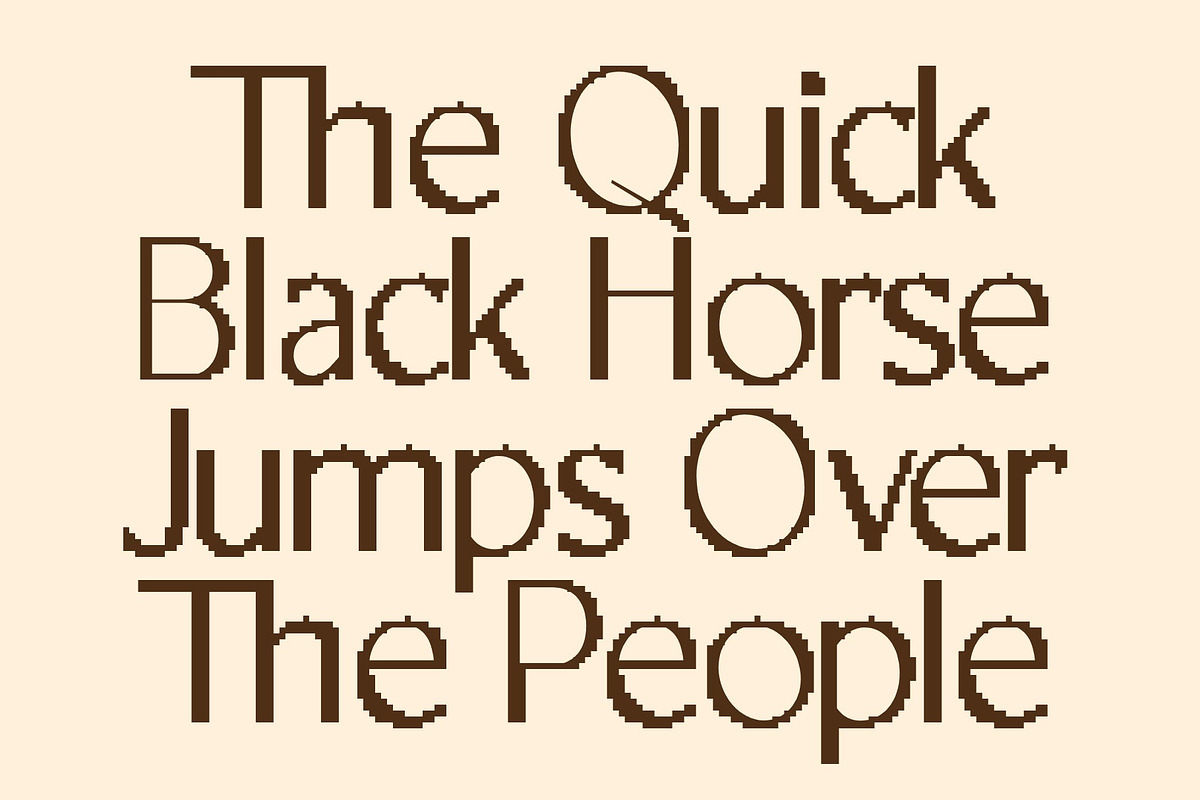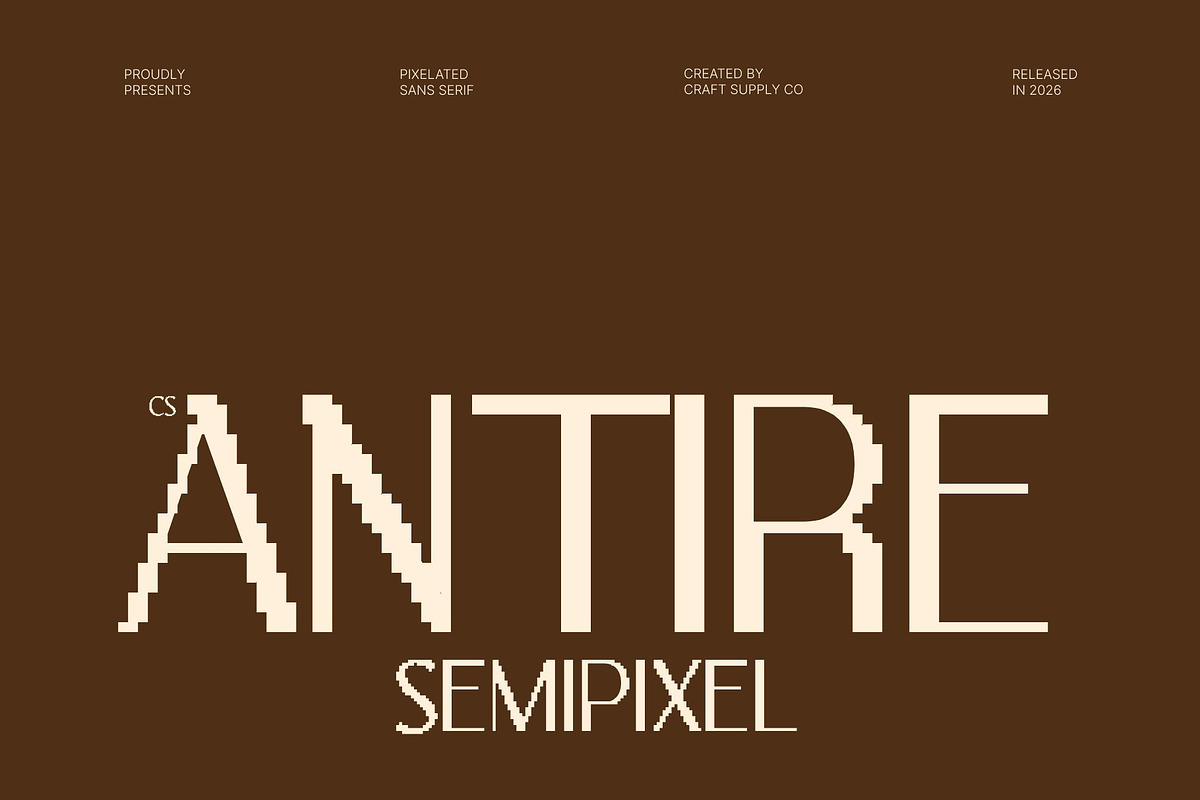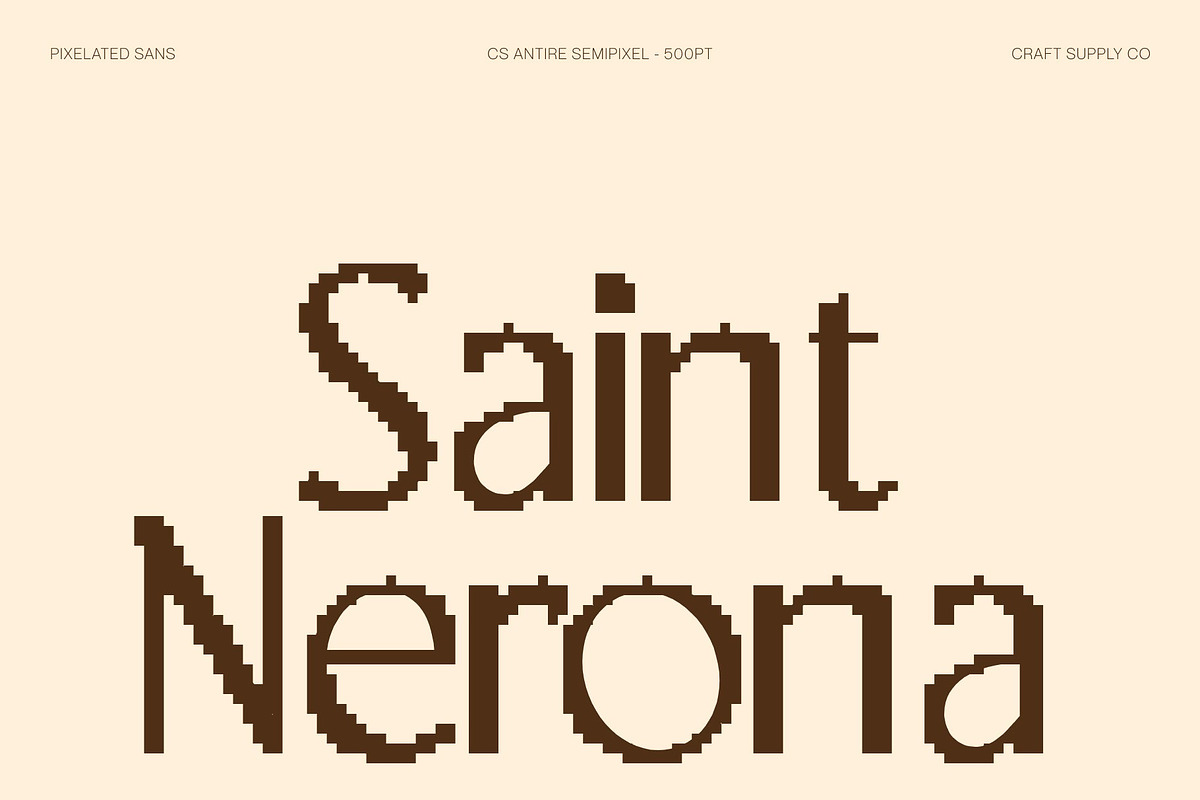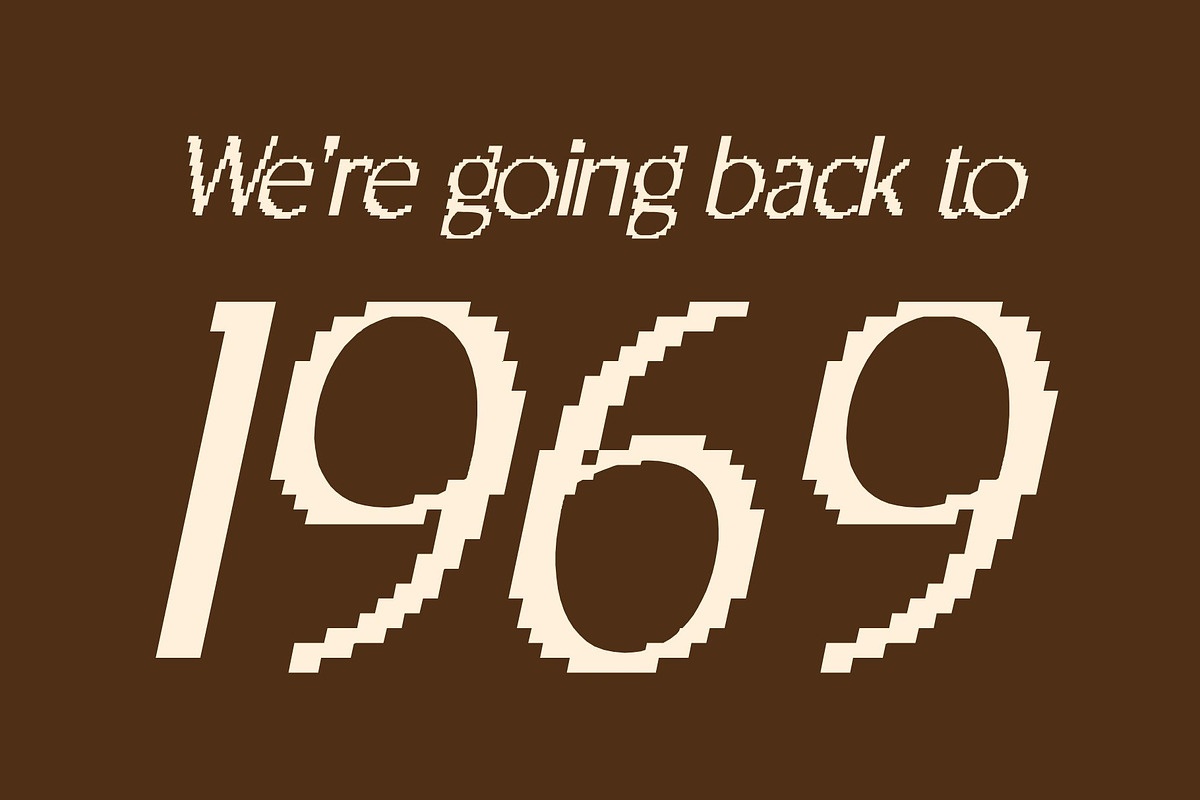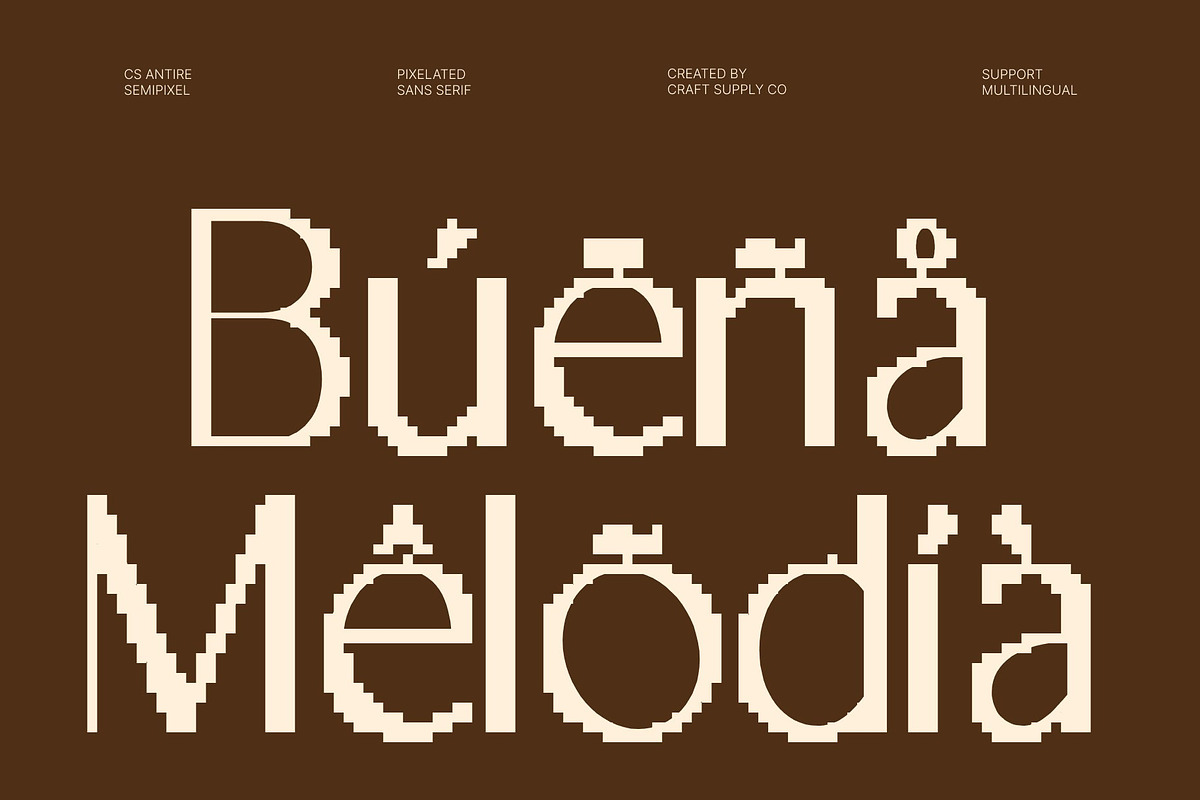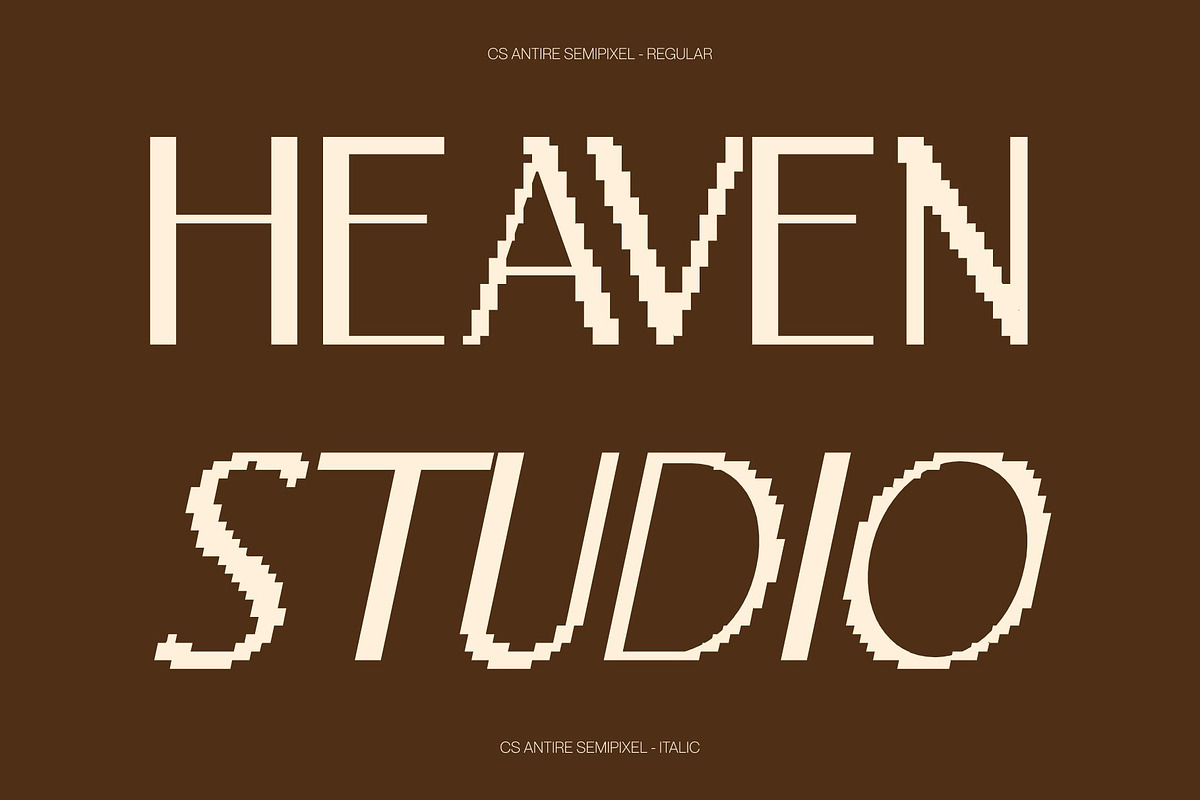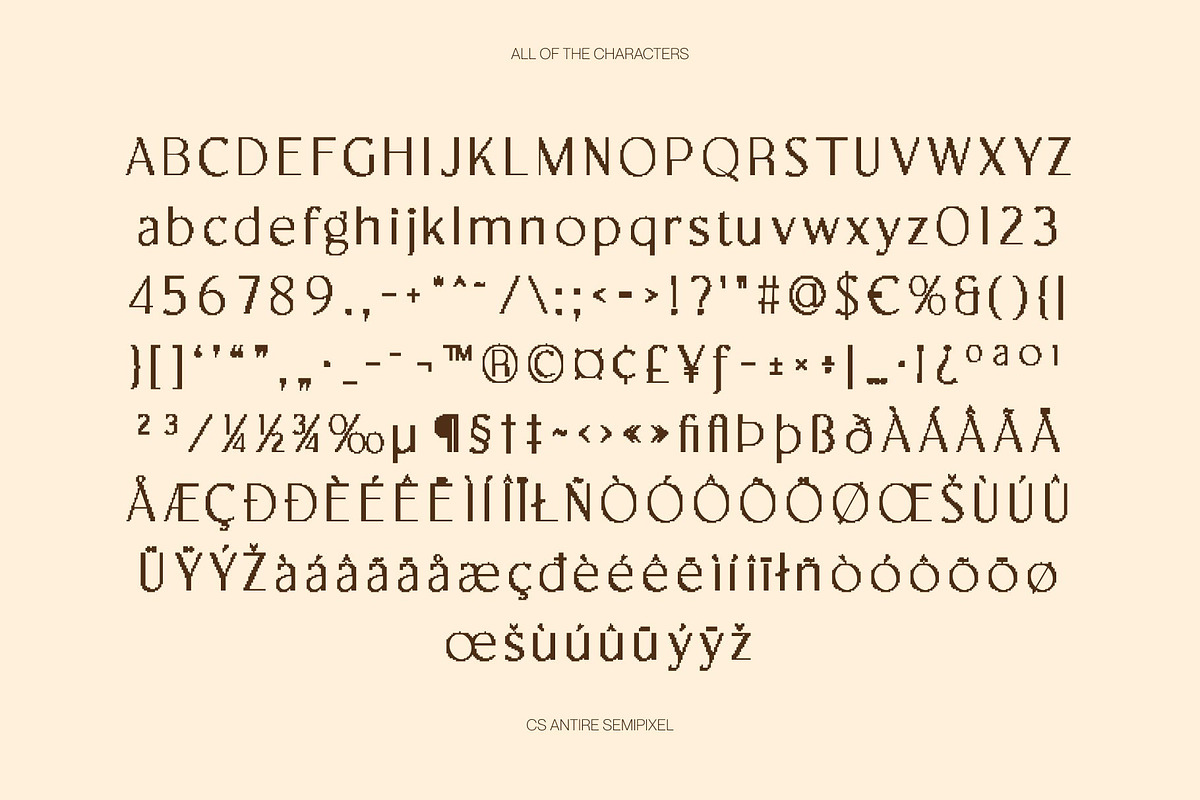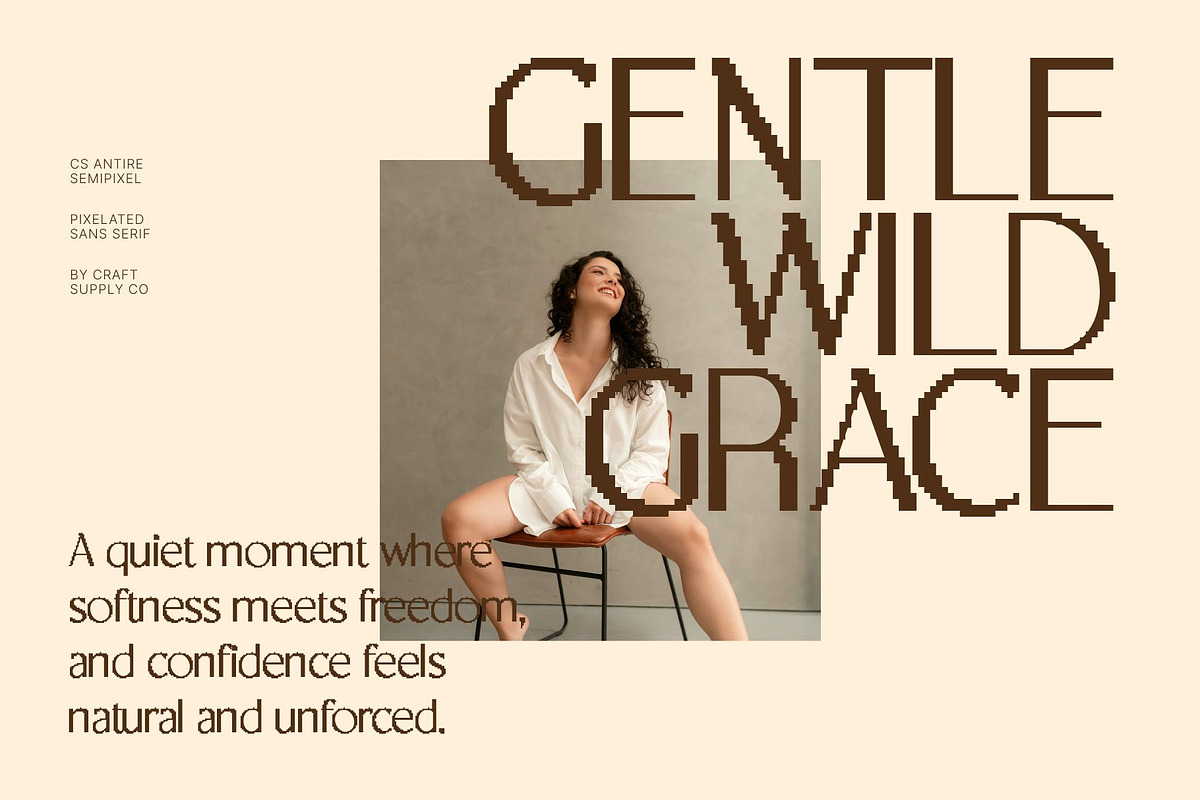
CS Antire Semipixel
CS Antire Semipixel – Modern Sans Serif Font: Where Digital Precision Meets Smooth Modern Style
Pixel-Inspired Forms with Smooth Contemporary Curves This is a modern sans serif font that combines pixel-inspired square structures with smooth curves and refined contemporary details. Unlike traditional rigid pixel fonts, its semi-pixel construction creates a cleaner and more fluid appearance, balancing digital aesthetics with modern readability. The result is a typeface that feels futuristic, stylish, and approachable.
Minimalist Design with High-Tech Character Blending geometric precision with modern simplicity, this font delivers a minimalist visual identity that feels professional and innovative. Its structured forms evoke a technological atmosphere while maintaining a sleek and polished rhythm, making the font ideal for projects that seek a clean and modern high-tech aesthetic.
Readable Style with Contemporary Versatility Designed for both impact and clarity, this font maintains excellent readability across digital and print applications. Its balanced combination of pixel influence and smooth shaping allows it to work effectively in futuristic branding, interface design, and creative layouts without feeling overly mechanical.
Perfect for Tech Branding, UI, and Digital Design This font perfect for technology branding, UI design, gaming visuals, digital posters, creative editorials, and modern visual identities that require a futuristic yet readable appearance. Its semi-pixel forms and minimalist style make it ideal for logos, websites, app interfaces, and innovative promotional materials.
CS Antire Semipixel Regular
CS Antire Semipixel Italic